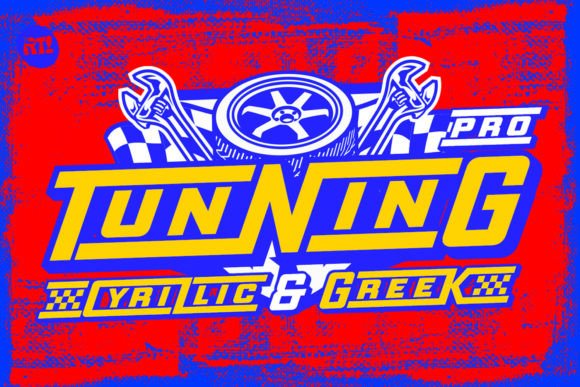
Unleash the Boldness: Tunning Pro Font Family for Dynamic Designs
In a world of visual storytelling, typography takes center stage, shaping the narrative and leaving an imprint on the viewer's mind. Enter Tunning Pro, a display font family that ignites creativity like no other. With its striking and versatile character, Tunning Pro is the perfect font for designers seeking to inject energy and personality into their projects.
A Symphony of Styles: Regular and Alternative Versions
Tunning Pro presents a diverse range of styles to cater to your every design need. Choose between the Regular version for a classic yet captivating look or embrace the Alternative version for a touch of edginess and intrigue. Each version boasts a comprehensive set of characters, including Cyrillic and Greek alphabets, granting you unparalleled versatility.
A Font for Every Occasion: Endless Creative Possibilities
With Tunning Pro at your disposal, design boundaries dissolve, and possibilities become limitless. Craft captivating posters that speak volumes, ignite passion with dynamic logos, or create mesmerizing social media graphics that leave a lasting impression. Unleash your imagination and let Tunning Pro be your creative muse, transforming ordinary designs into extraordinary masterpieces.
Beyond Aesthetics: The Power of Expression
Tunning Pro is more than just a font; it's an artistic tool that empowers you to communicate, inspire, and move audiences. Whether you're a seasoned designer or just starting your creative journey, Tunning Pro will ignite your passion and elevate your designs to new heights. Seize the opportunity to make a statement, leave a lasting legacy, and let your designs resonate with the world.